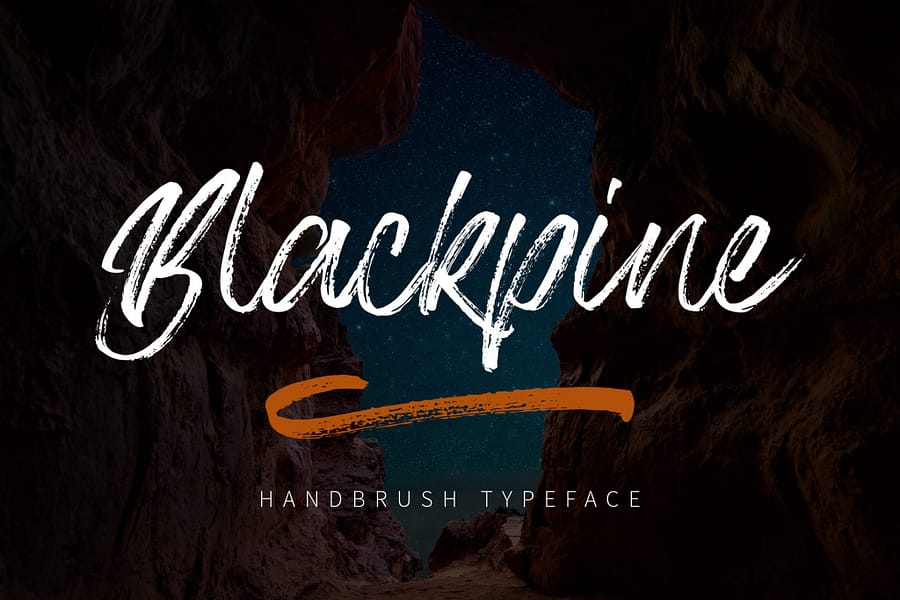
Blackpine - Handbrush Typeface
Blackpine is handbrush font, hand-drawn typeface. It has a elegant, classy look and cool. Itโ€™s a great font for fashion, apparel projects, signature, album cover, logo, branding, magazine, social media, & advertisements, but also works great for other projects.
• Basic Latin A-Z and a-z
• Numbers
• Symbols